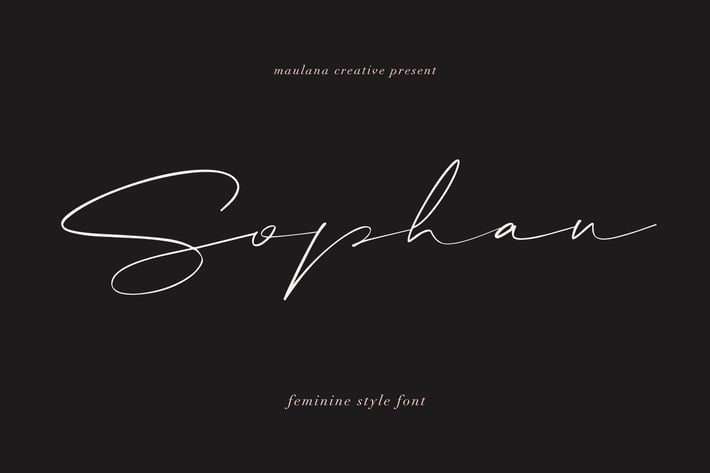
Sophan Calligraphy Font
Give your designs an authentic handcrafted feel. "Sophan" is perfectly suited to signature, stationery, logo, typography quotes, magazine or book cover, website header, clothing, branding, packaging design and more.